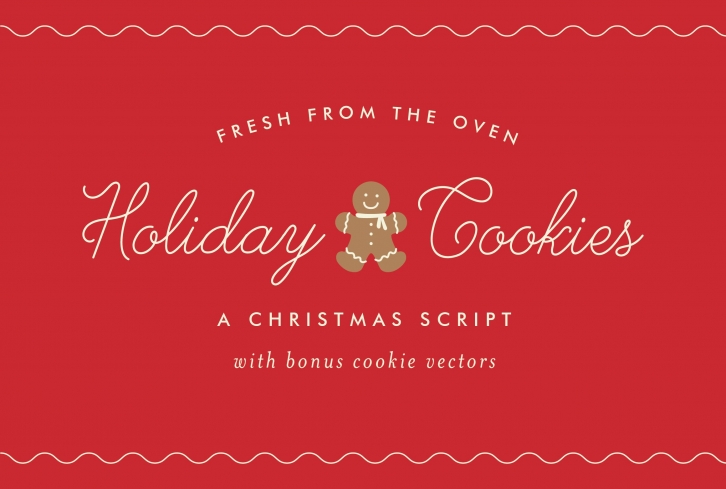
Holiday Cookies is an icing inspired Christmas script, perfect for gingerbread houses and hot cocoa.
Holiday Cookies is suitable for Christmas cards, wedding invitations, branding, stationery, blog design, custom art, custom stamps, custom embossers, or any design purpose. You can use it for your personal use, or for a commercial project.